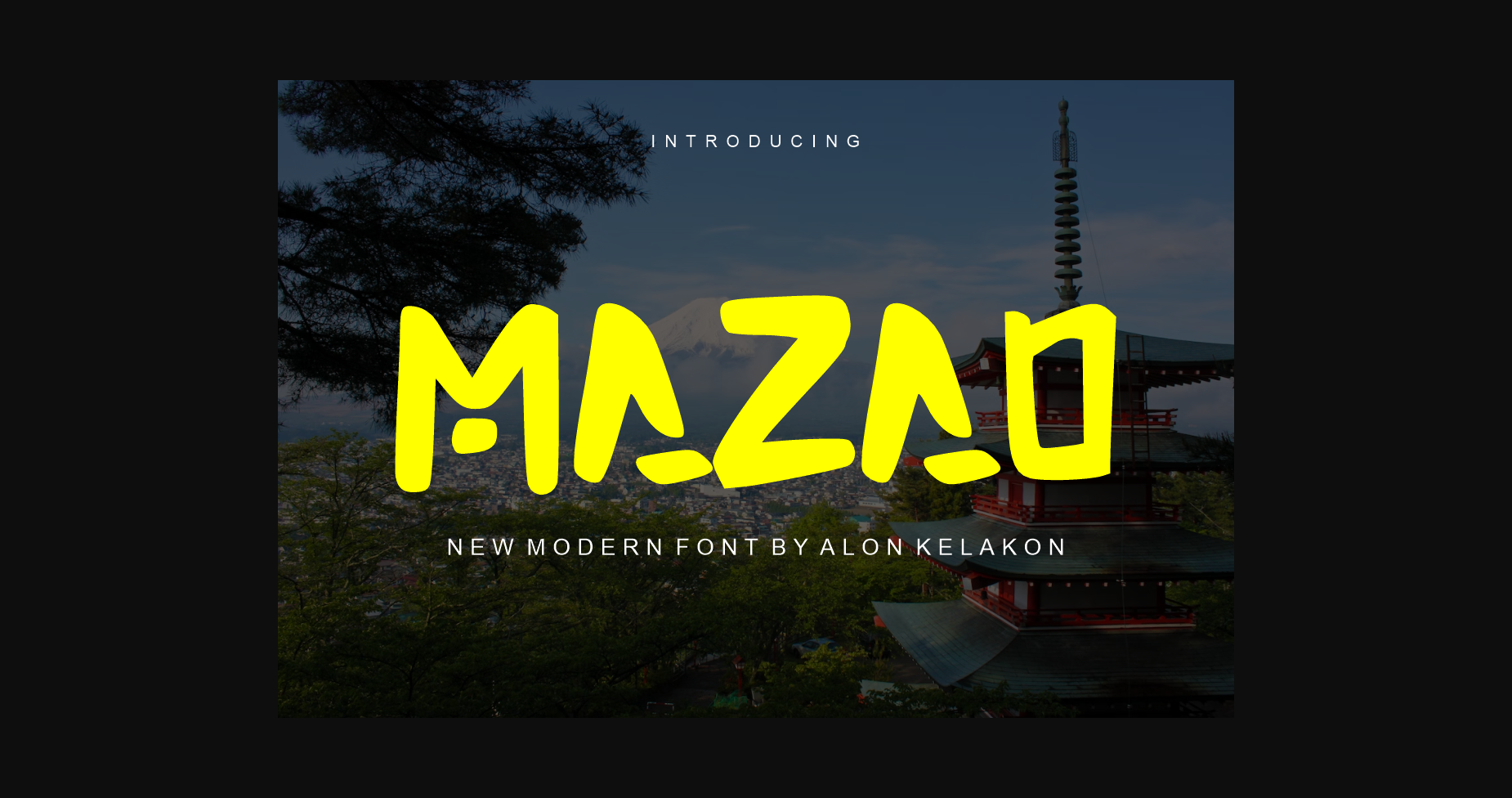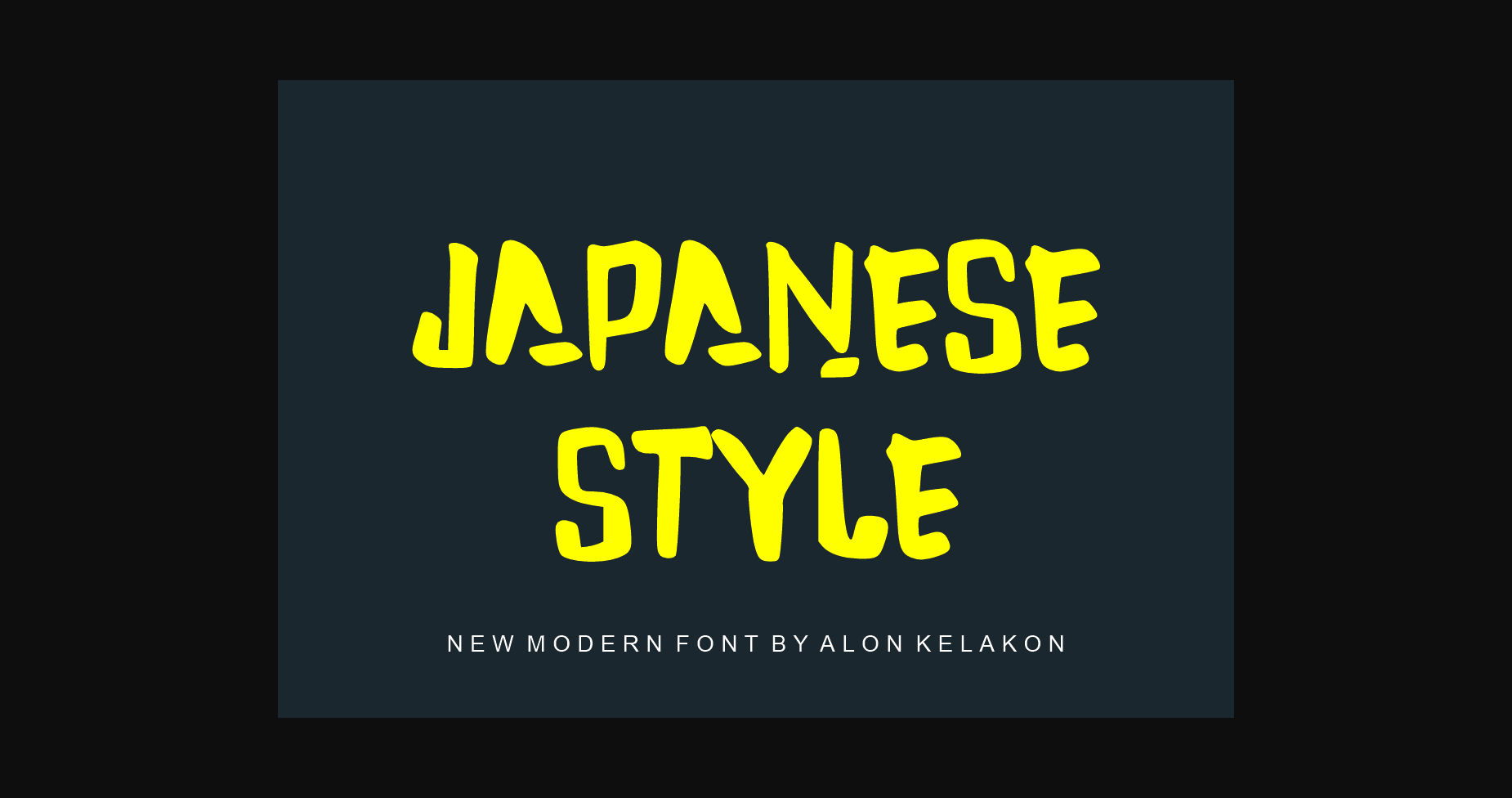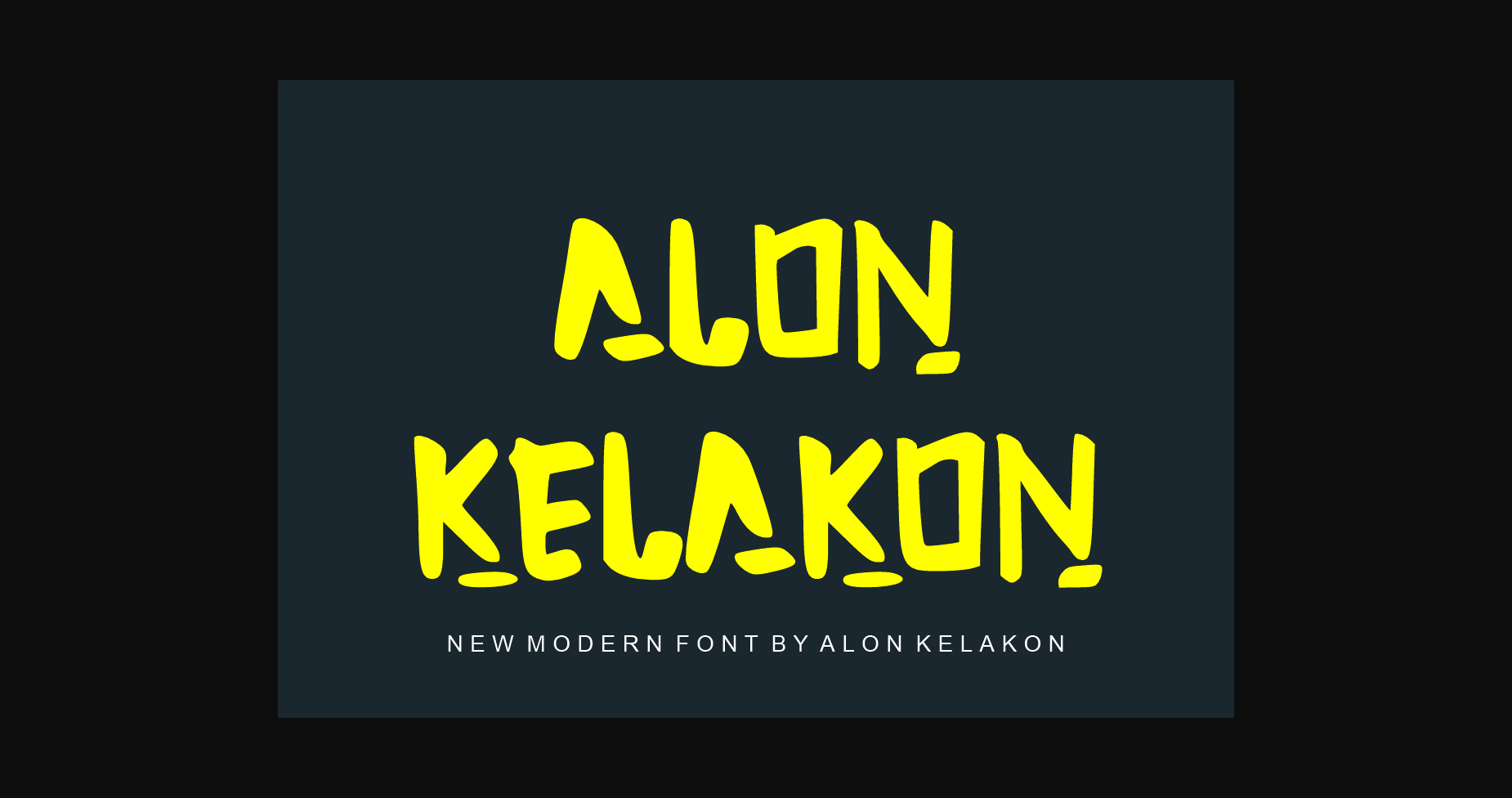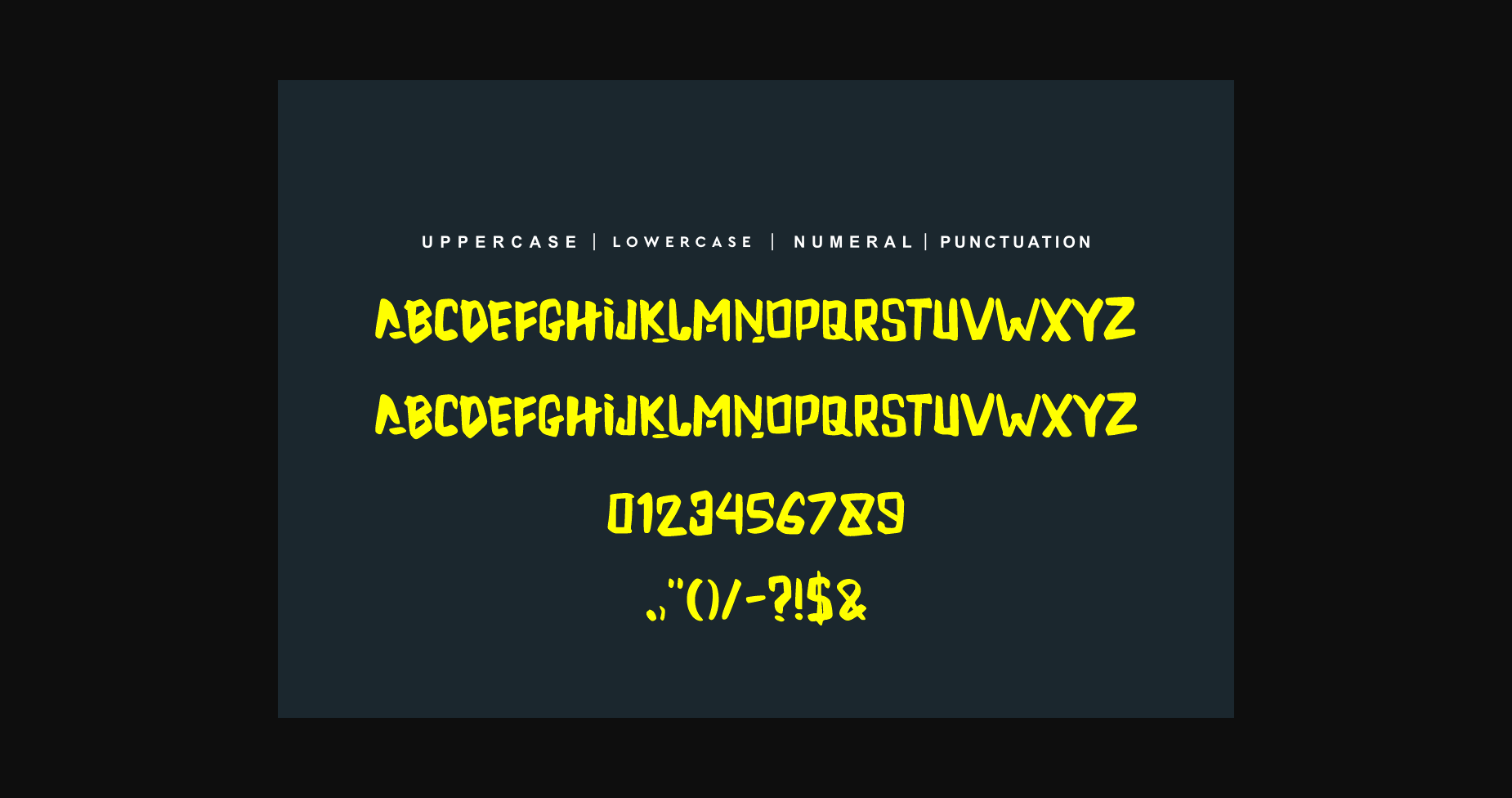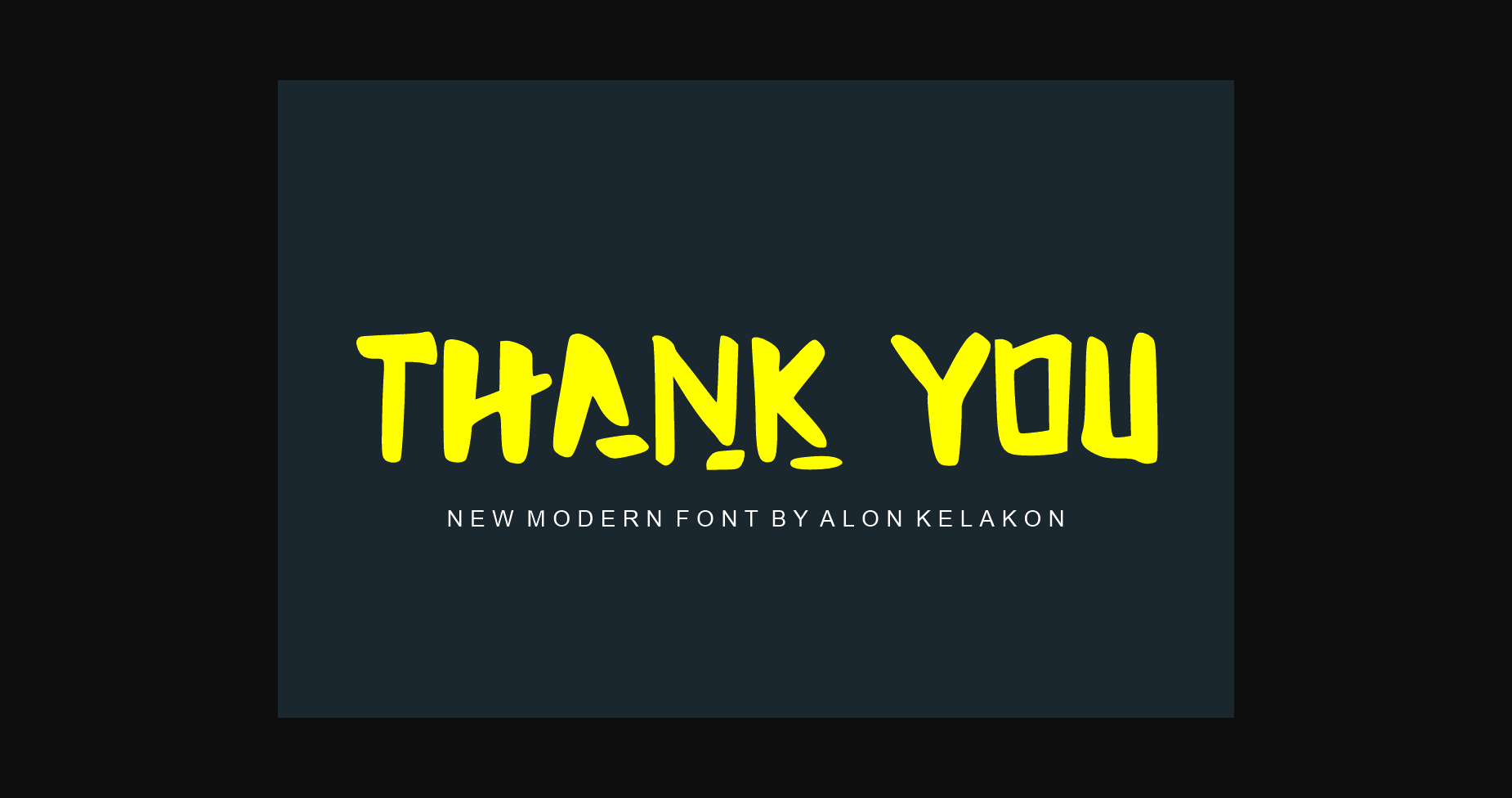
Mazao Font
About Mazao Font
Mazao Font is a unique, ready-to-use for your design like labeling, clothing, movie scenes, poster, movie title, gigs, album covers, logos, and much more.